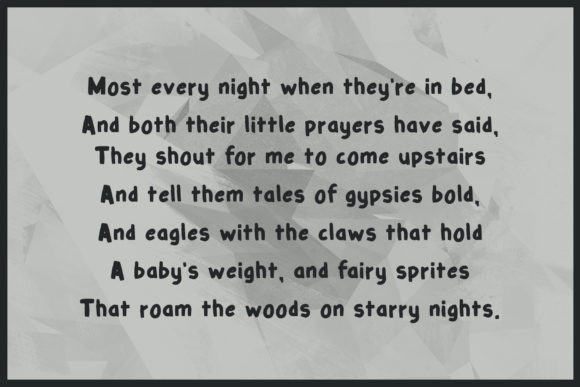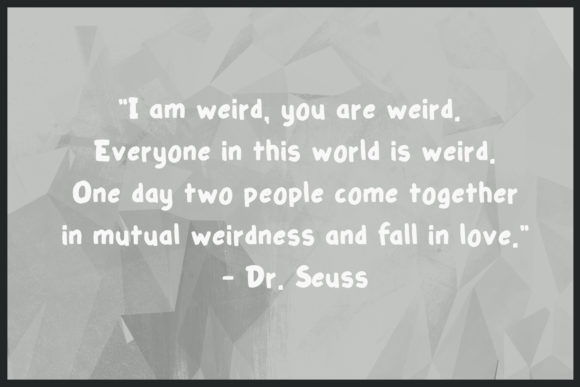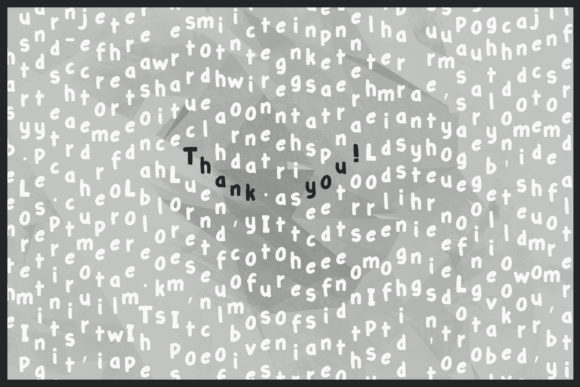
Introduction to Ronaldo Font
Remember that moment when you finally landed a high-paying design project, and you got to unleash your creativity? The rush of excitement as you start brainstorming ideas, experimenting with colors, and choosing the perfect font to bring your vision to life. For designers, this moment is pure magic. And what’s even more magical is having the right design resource at your fingertips. That’s where Ronaldo Font comes in – a quirky display font that’s about to give your creative project a playful twist.
With its unique style and high-quality design, Ronaldo Font is the perfect addition to any branding material, from logos to posters, and even album covers. And the best part? You can download it for free, complete with a transparent background, making it easy to integrate into your design workflow. Whether you’re a seasoned designer or just starting out, Ronaldo Font is a valuable asset that’s sure to elevate your designs to the next level.
Ronaldo Font
- High-quality, professional font ideal for creative projects and design resources.
- Resolution: Optimized for high-resolution displays, ensuring crisp and clear text.
- Unique characteristic: Unique blend of modern and vintage styles, making it perfect for creative projects.
- Perfect for designers, artists, and creatives looking for a high-quality, free font resource.
Honest Review: Ronaldo Font
I recently came across the Ronaldo Font and was impressed by its clean and modern design. As a designer, I always appreciate a high-quality design resource that can elevate my creative projects.
The Ronaldo Font is a free download that offers a transparent background, making it easy to use in various design contexts. I particularly like the way it looks on business cards and social media graphics.
- ✨ Unique and stylish design that sets it apart from other fonts.
- ✨ High-quality vector format makes it suitable for large-scale prints.
- ⚠️ Limited language support, which may be a concern for designers working on multilingual projects.
- ⚠️ Not suitable for small text sizes due to its bold and eye-catching design.
Overall, I’m impressed with the Ronaldo Font and would recommend it to designers looking for a high-quality, modern font. While it may have some limitations, its unique design and ease of use make it a valuable addition to any design toolkit.
Ronaldo Font
The Ronaldo Font is a high-quality design resource that can elevate your creative project. This font is available for free download and features a transparent background, making it versatile for various design applications.
Getting the Most Out of Ronaldo Font
To get the most out of the Ronaldo Font, use it for headings and titles to add a touch of elegance to your design. You can also experiment with different font sizes and styles to create visual interest.
The Ronaldo Font is ideal for creating invitations, business cards, and social media graphics. Its high-quality design and transparent background make it a versatile resource for various creative projects.